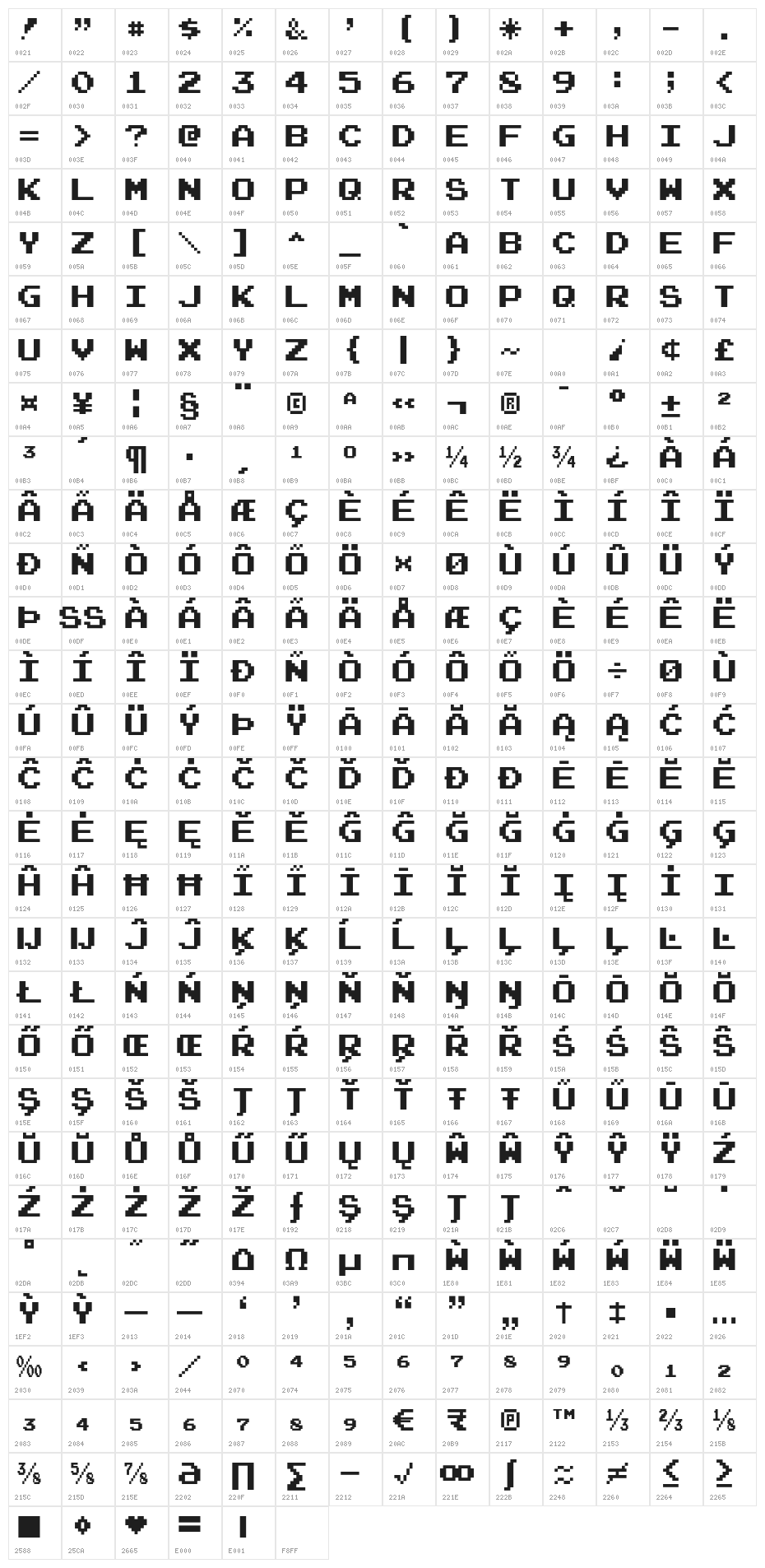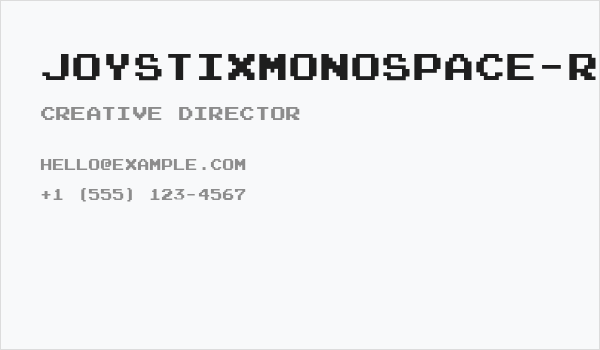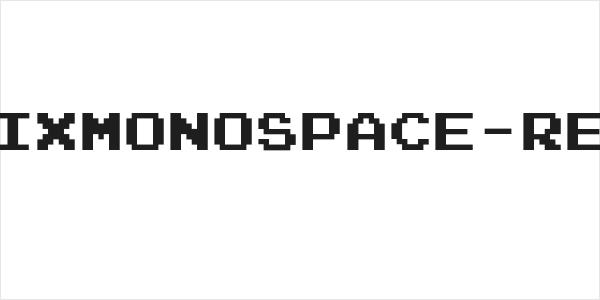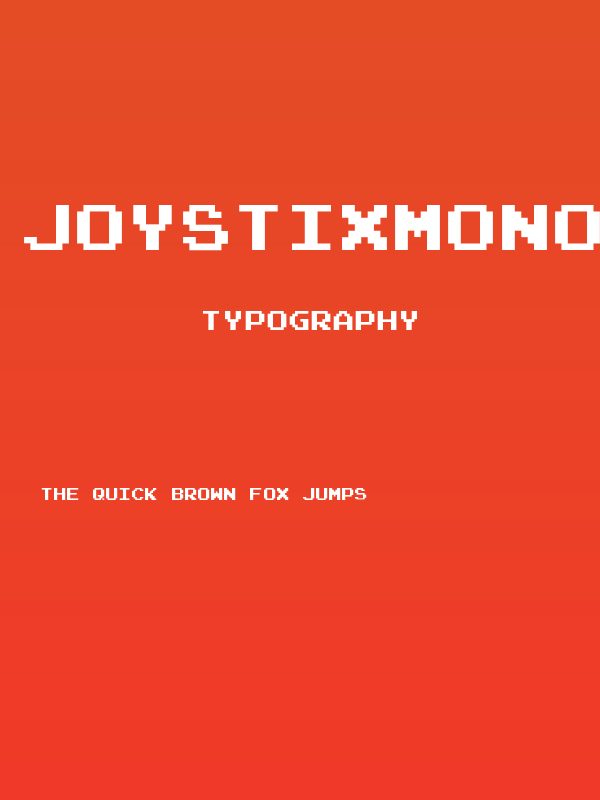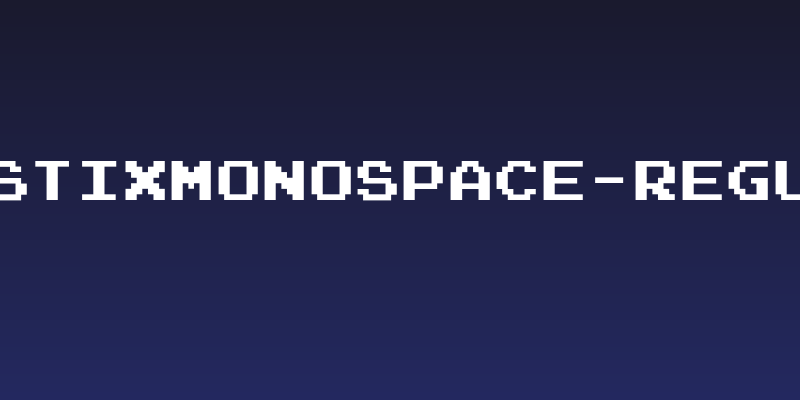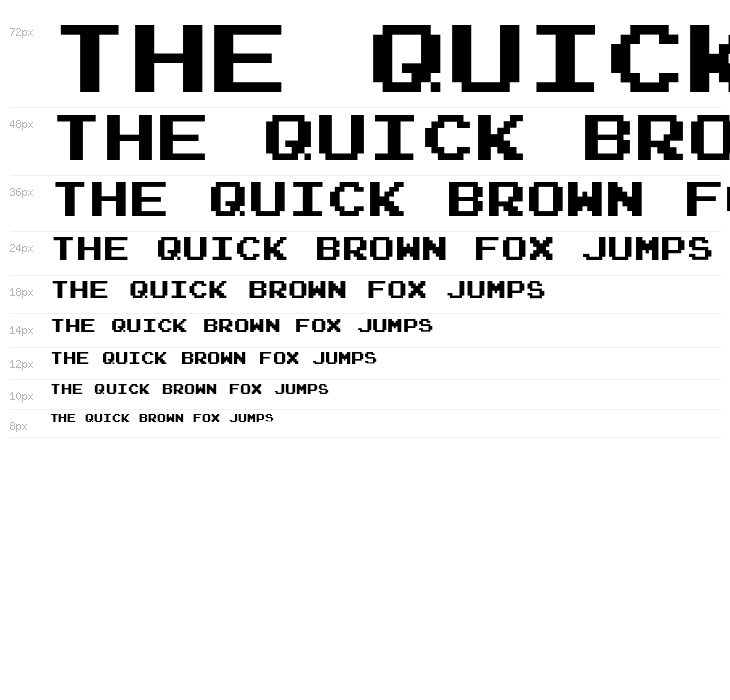
JoystixMonospace-Regular Font
JoystixMonospace-Regular Description
This font features a distinct pixelated design reminiscent of classic video game aesthetics. Each character is constructed with a blocky, grid-like structure, providing a retro digital feel. The uniformity in character width emphasizes its monospaced nature, making it ideal for coding or any digital-themed projects. The uppercase and lowercase letters maintain a consistent height, enhancing readability and maintaining a cohesive look. The numerals and special characters follow the same pixelated style, ensuring a seamless integration across different text elements.
| Overall Style | Retro, Digital |
| Use Case | Headlines, Coding, Digital Art |
| Proposed Projects | Ideal for retro video game designs, coding interfaces, digital art projects, and any creative work seeking a nostalgic digital look. |